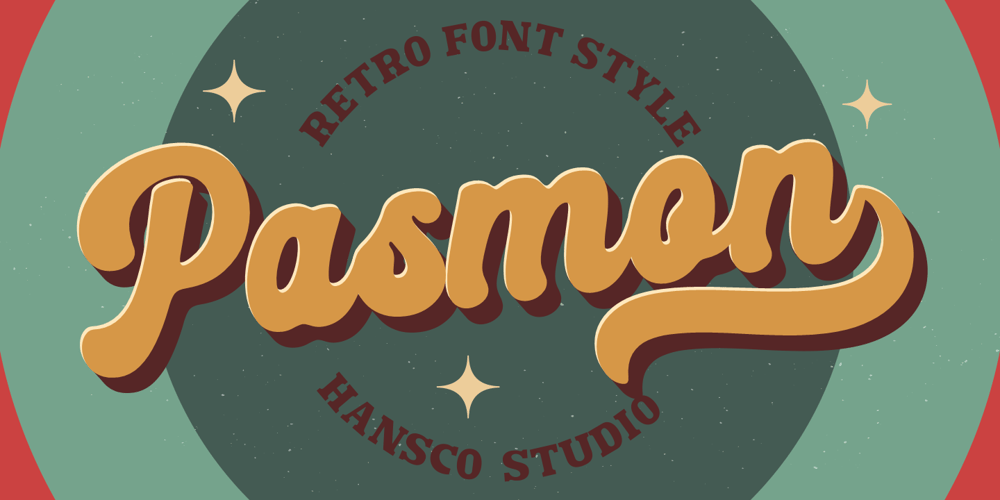
Pasmon Font Family was designed by Burhan Afif and published by HansCo. Pasmon contains 1 styles and family package options. Pasmon Font is a lettering retro vintage font. You will get alternate characters such as swash on some characters. Equipped with all complete characters ranging from uppercase letters, lowercase letters, numbers, punctuation marks and multi-lingual support, this font is ready to be used in any project. Very suitable for logotype, Stickers, Packaging design, Cricut Project, Headlines, Brand identity, T shirt or Apparel industry, Posters, Magazines, Books, YouTube, Instagram, Websites, Canva, Corjl or any of your creative design projects.